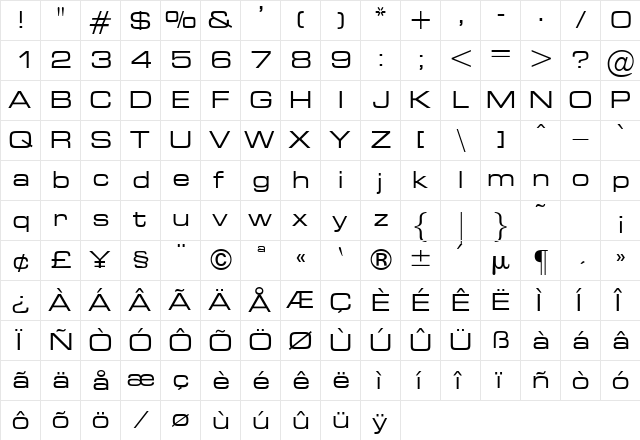
Eddmond Regular
Design Context for Eddmond Typeface
Eddmond offers clean, dependable letterforms without strong stylistic allegiance, making it a practical choice for designers who need flexibility.